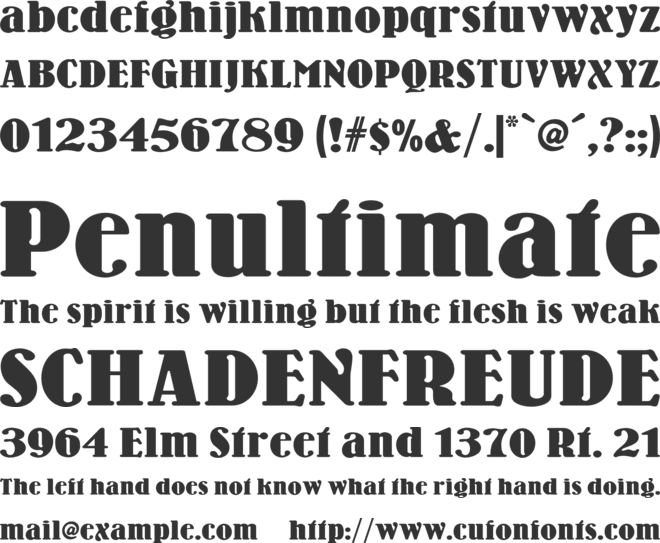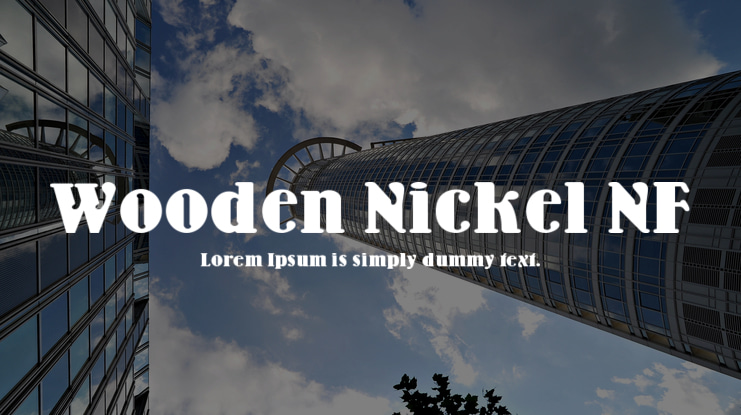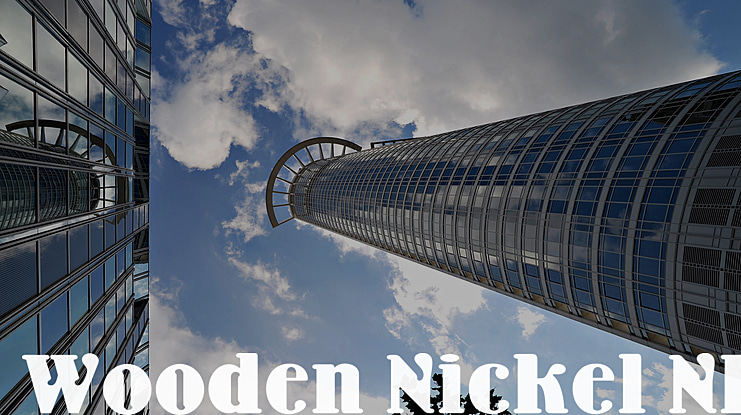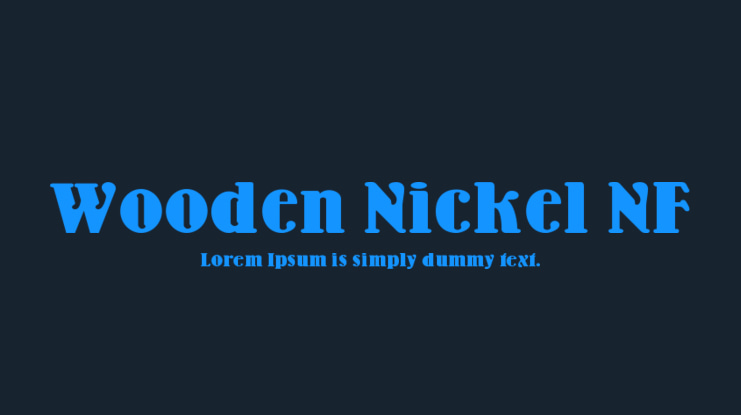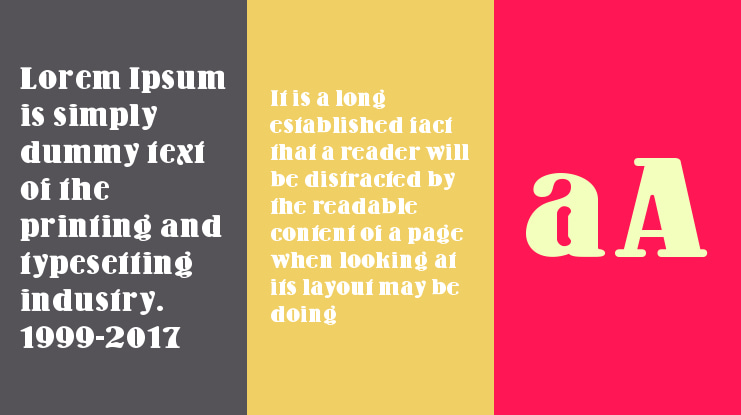
Wooden Nickel NF Font
An old favorite, Bernhard Antique Bold Condensed, cleaned up and fattened up. Warm, charming, personable ⦠suitable for any occasion.